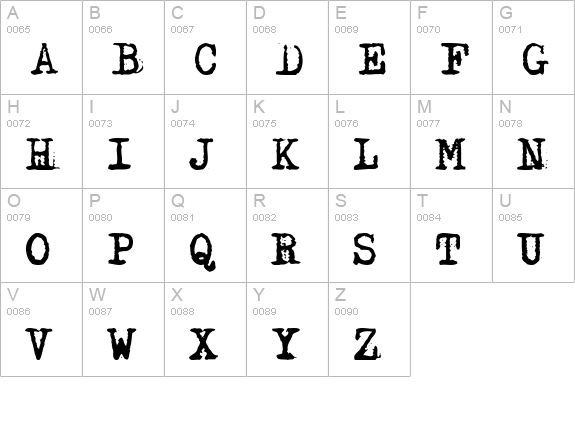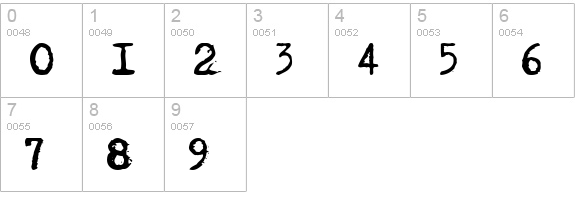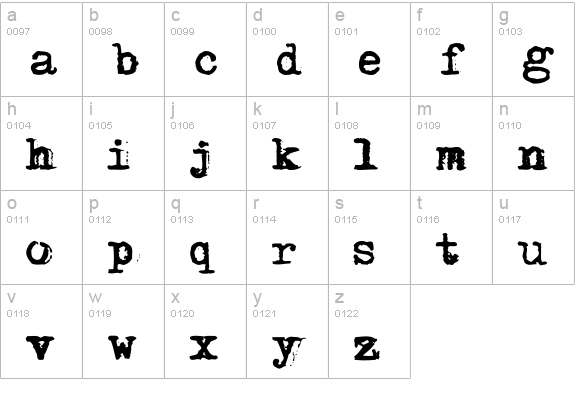
Maszyna Font Details
Maszyna font is a stunning typeface that effortlessly merges classic elegance with a modern twist. With its refined curves and sleek lines, this font exudes a sense of sophistication and professionalism, making it the perfect choice for a wide range of design projects. What sets Maszyna font apart is not only its aesthetic appeal, but also its versatility. Whether used for headlines, body text, or even logos, this font adapts flawlessly to any context, enhancing the visual impact of any design. One of the most appealing aspects of Maszyna font is that it is freely available to download at FontsMarket.com. This means that designers and creatives can easily access this remarkable font without any hassle. With just a few clicks, they can bring their visions to life and add a touch of elegance to their projects. Maszyna font is designed with utmost attention to detail, ensuring exceptional legibility and readability. Its balanced proportions and careful spacing make it a joy to read, whether in print or on digital platforms. This font truly elevates the reading experience, making it a favorite among designers and typographers alike. With its timeless appeal and versatile nature, Maszyna font is a must-have for any designer looking to add a touch of sophistication to their work. Its free availability on FontsMarket.com makes it accessible to all, allowing designers to unleash their creativity without any limitations. So why wait? Download Maszyna font today and let its elegance speak for itself in your next design project.